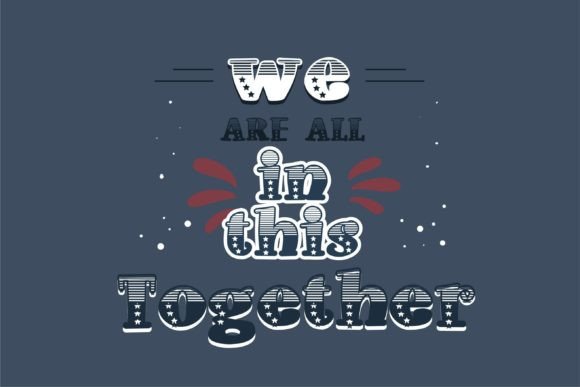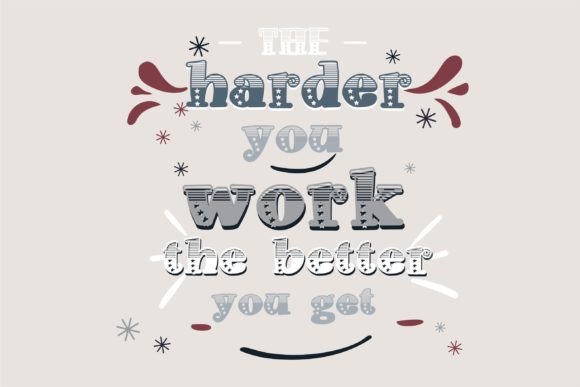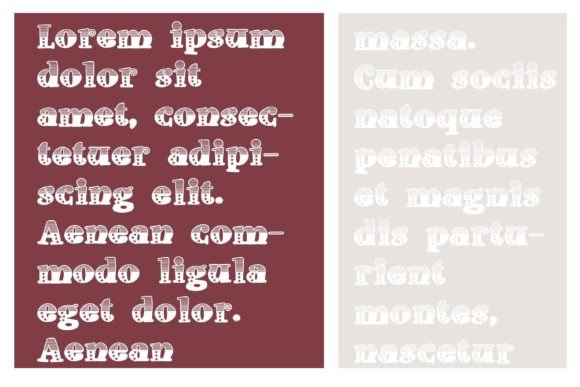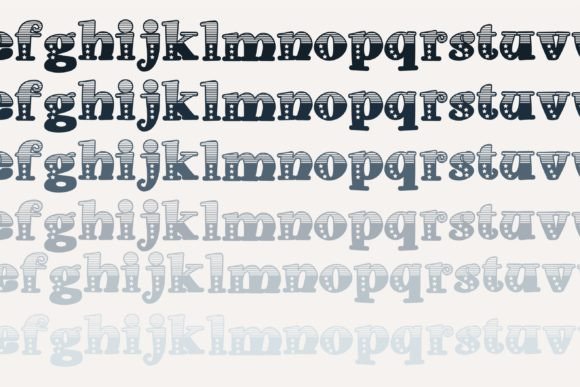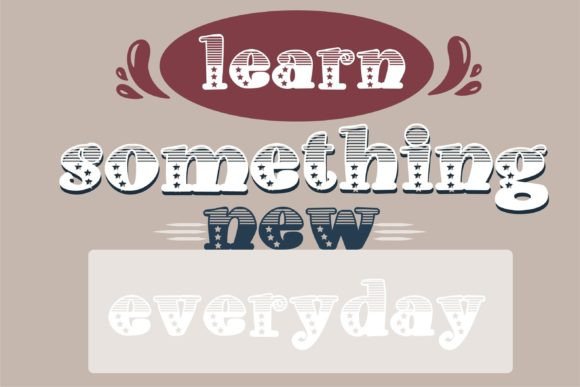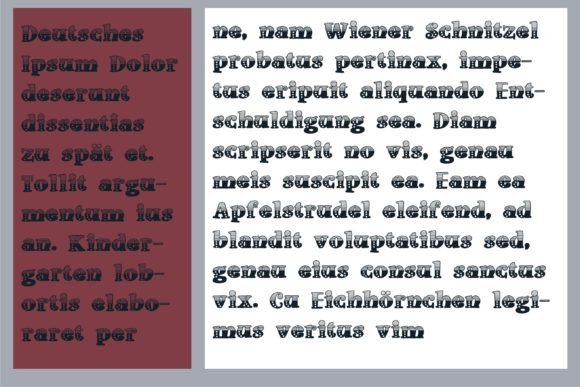
Introducing Doohickey Patriot Font: Add a Touch of Joy to Your Creations
Are you looking for a font that exudes fun, patriotism, and playfulness? Look no further than the Doohickey Patriot Font! This display font is perfect for designers, crafters, and anyone who wants to add a touch of joy to their creations. Whether you’re working on posters, quotes, titles, party invitations, book covers, or any other project that requires a dash of whimsy, Doohickey Patriot is an excellent choice.
What Makes Doohickey Patriot Font Special?
Doohickey Patriot Font is a unique and eye-catching font that is sure to make your designs stand out. Its fun and patriotic vibe makes it perfect for projects that require a lighthearted and celebratory feel. The font’s playful curves and bold lines give it a distinctive look that is both modern and nostalgic.
Uses for Doohickey Patriot Font
Doohickey Patriot Font is incredibly versatile and can be used for a wide range of projects, including:
• Posters: Create eye-catching posters for events, promotions, or awareness campaigns that require a fun and attention-grabbing font.
• Quotes: Add a touch of personality to your quote designs with Doohickey Patriot Font’s playful and uplifting vibe.
• Titles: Use Doohickey Patriot Font as a title font for books, movies, or videos that require a bold and attention-grabbing headline.
• Party Invitations: Create festive and fun party invitations that set the tone for a celebratory event.
• Book Covers: Add a touch of whimsy to your book covers with Doohickey Patriot Font’s unique and playful design.
Why Choose Doohickey Patriot Font?
There are many reasons why Doohickey Patriot Font stands out from other fonts. Here are a few:
• Unique Design: Doohickey Patriot Font has a distinctive design that is both fun and patriotic.
• High-Quality: The font is carefully crafted to ensure high-quality and clear rendering, even at large sizes.
• Versatile: The font can be used for a wide range of projects, from posters to party invitations.
Tips for Using Doohickey Patriot Font
Here are a few tips for getting the most out of Doohickey Patriot Font:
• Experiment with Colors: Doohickey Patriot Font looks great in bold, bright colors that match its playful vibe.
• Mix and Match: Combine Doohickey Patriot Font with other fonts to create a unique and eye-catching design.
• Play with Sizes: Experiment with different font sizes to create visual interest and hierarchy in your designs.